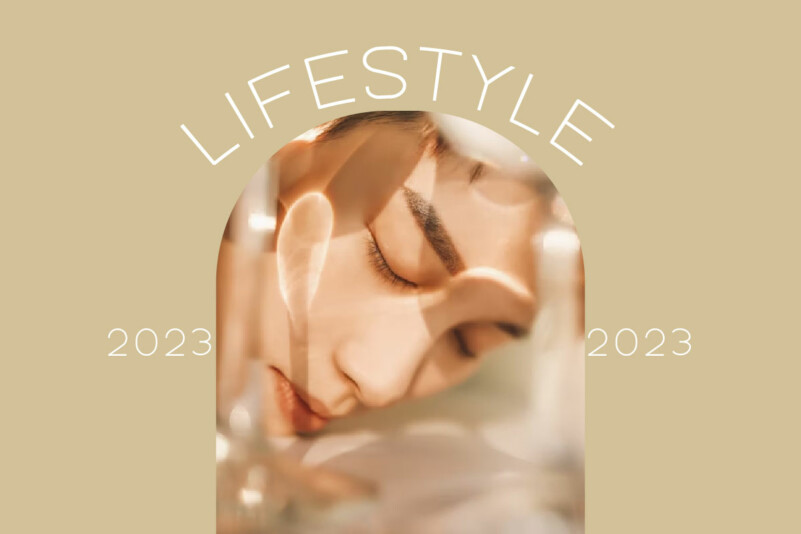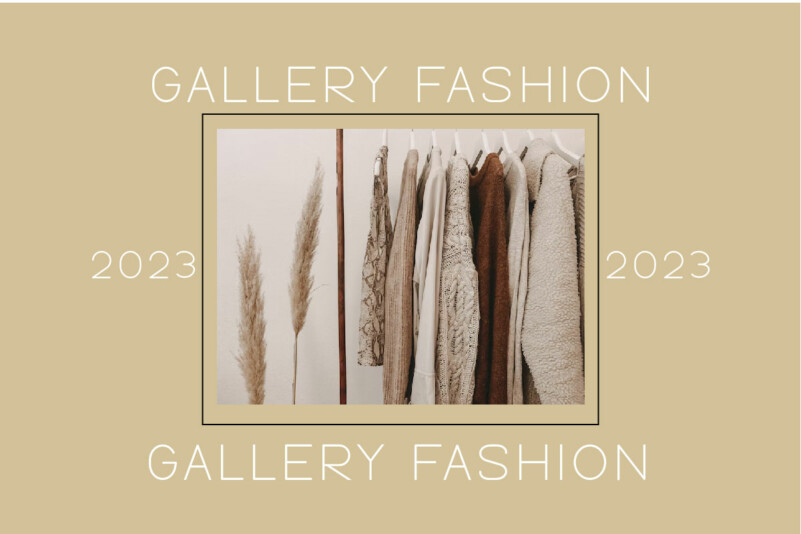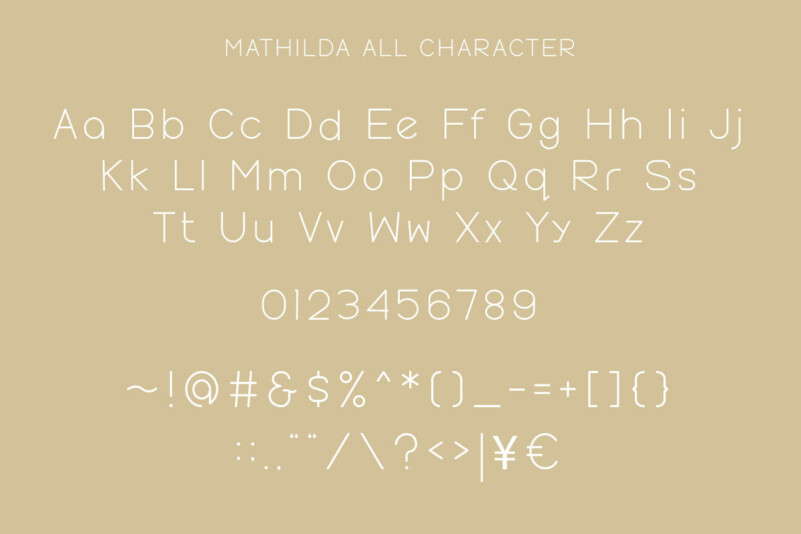
Mathilda Font is inspired by the famous minimalist logo perfect for your needs in designing templates, brochures, videos, advertising branding, logos, invitations, layout designs, elegant crafts, beauty designs and more